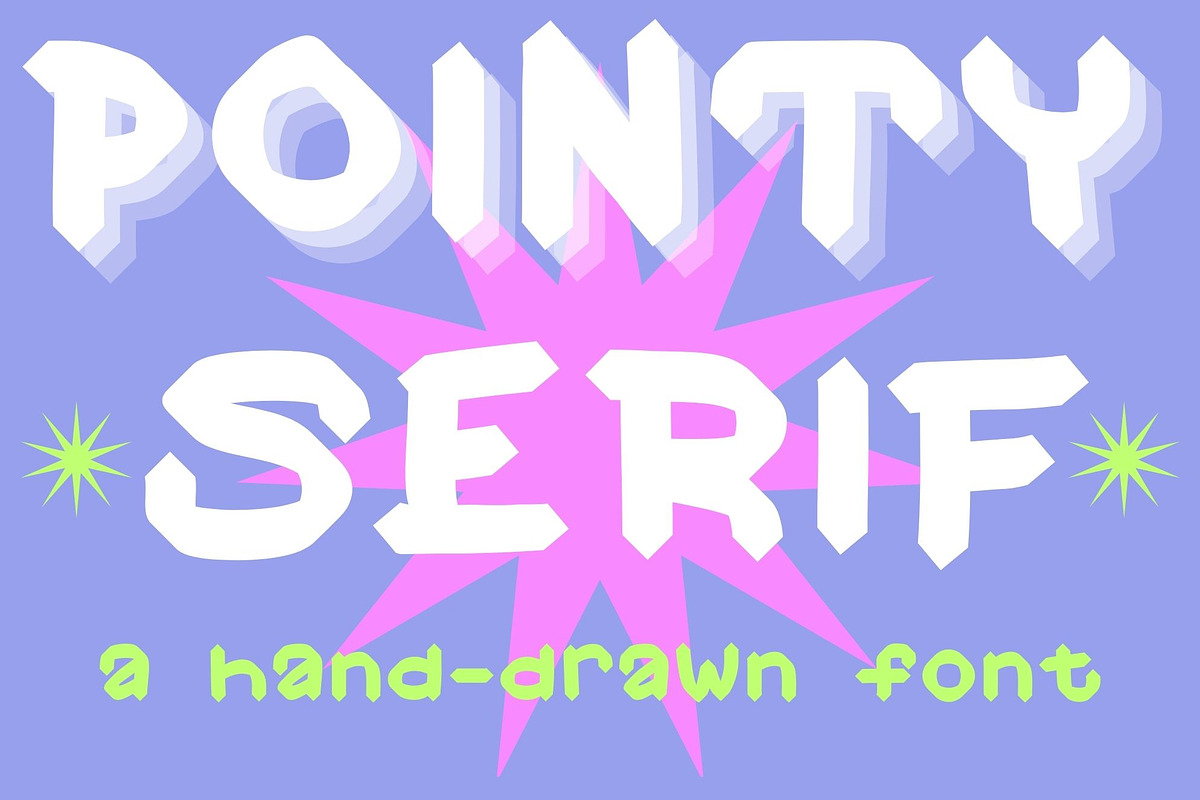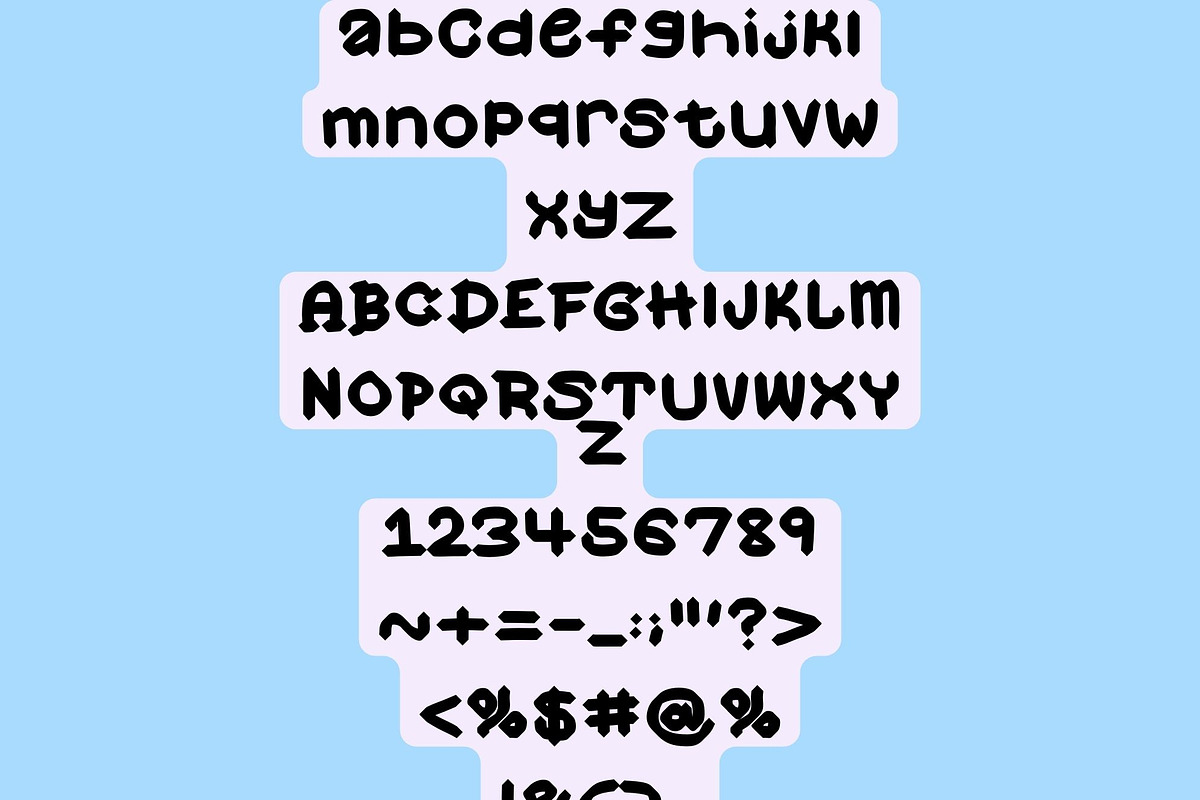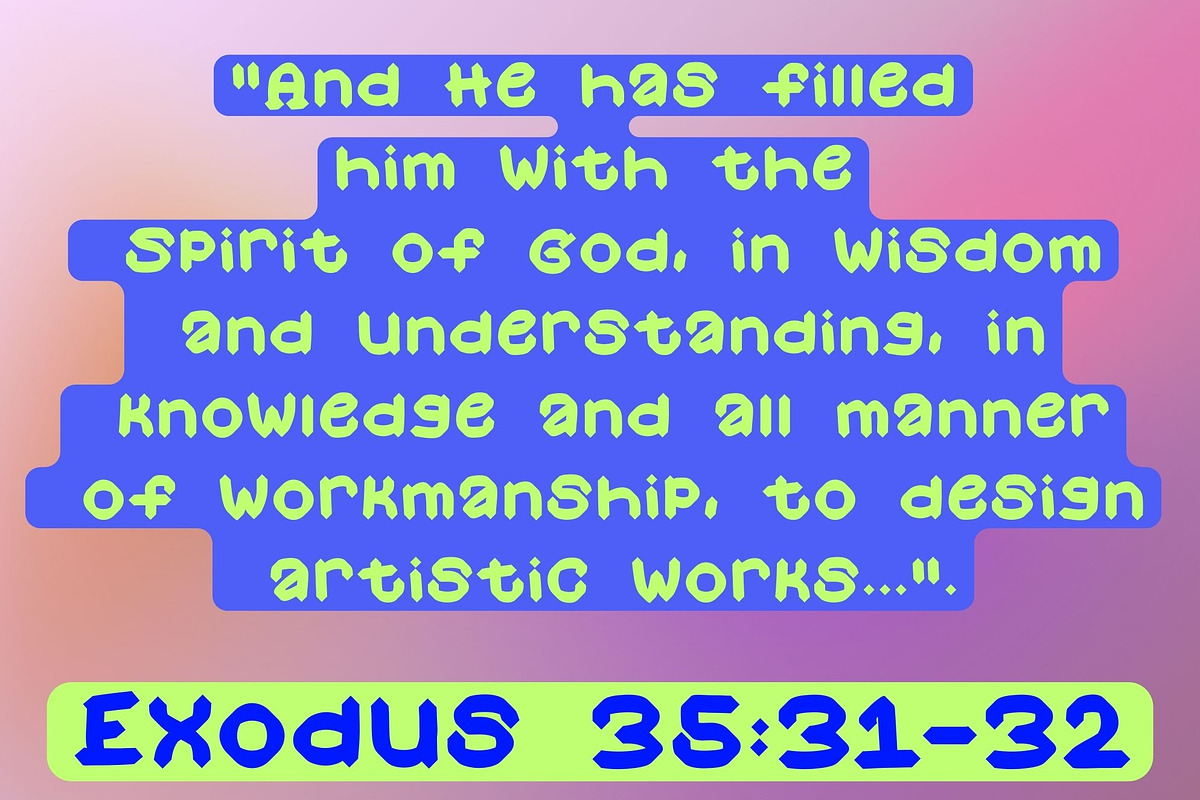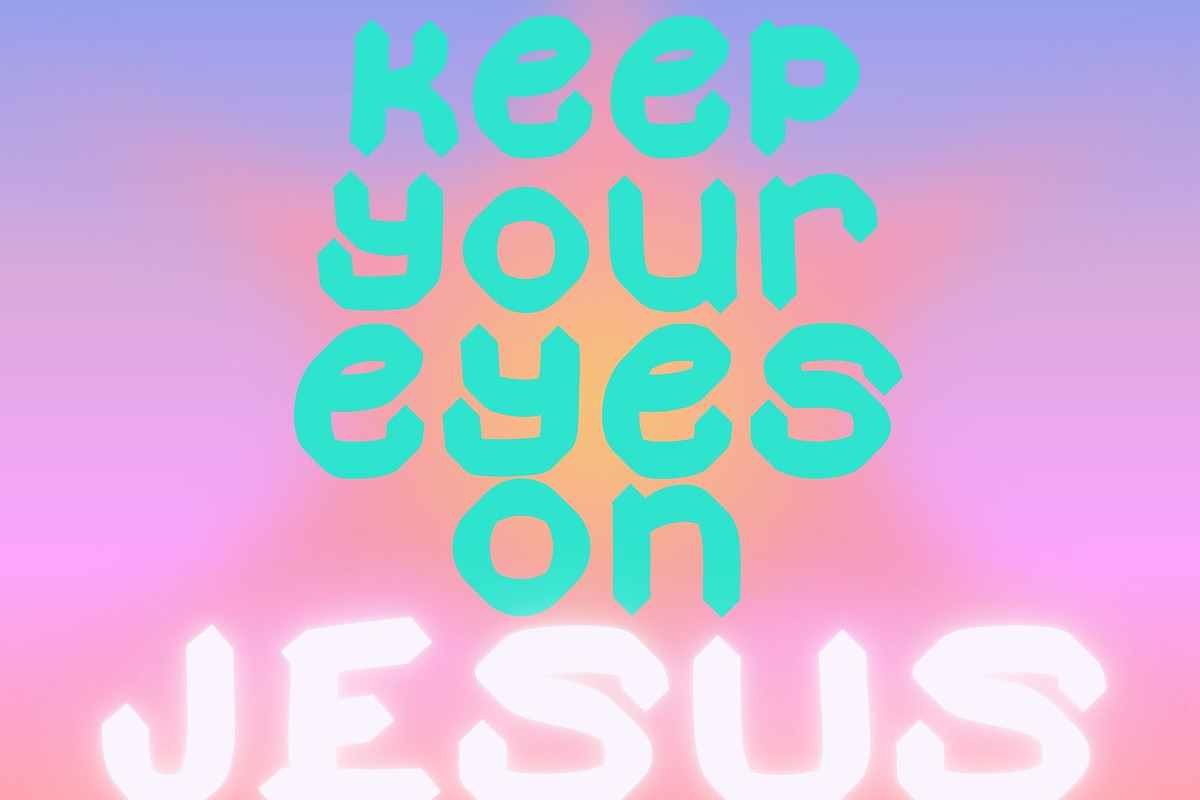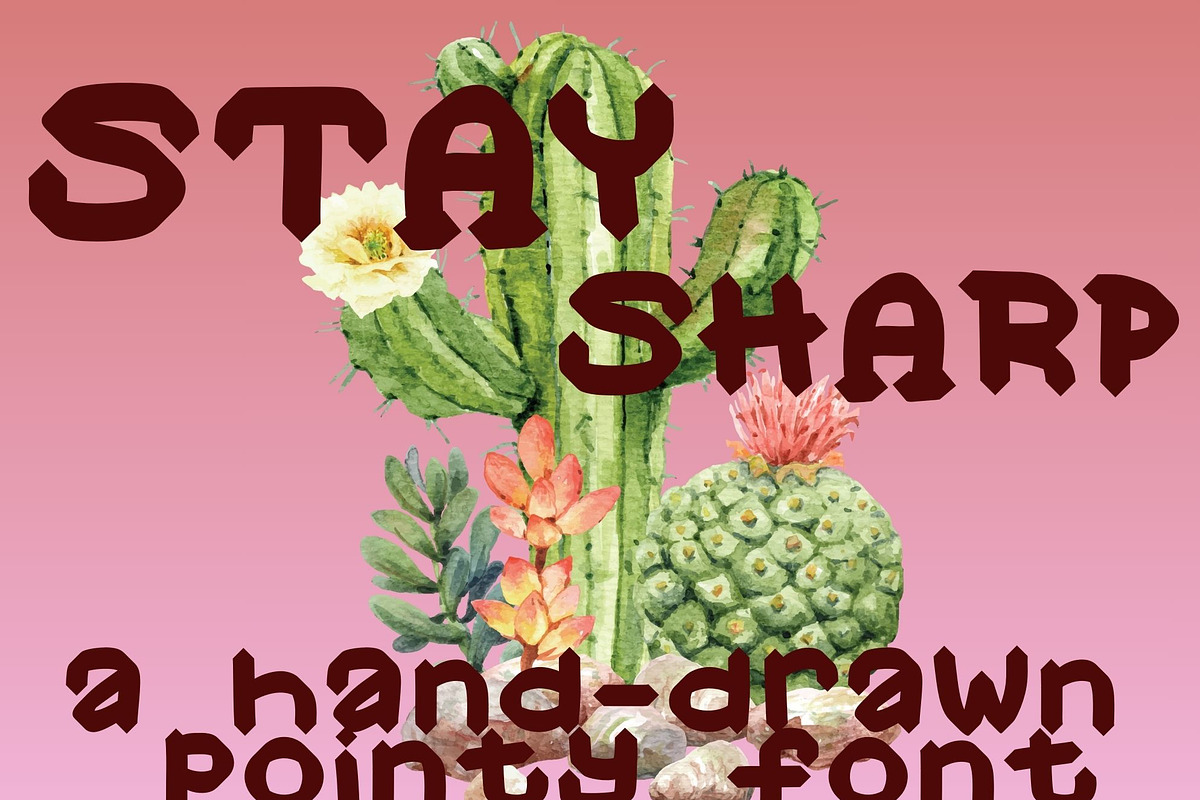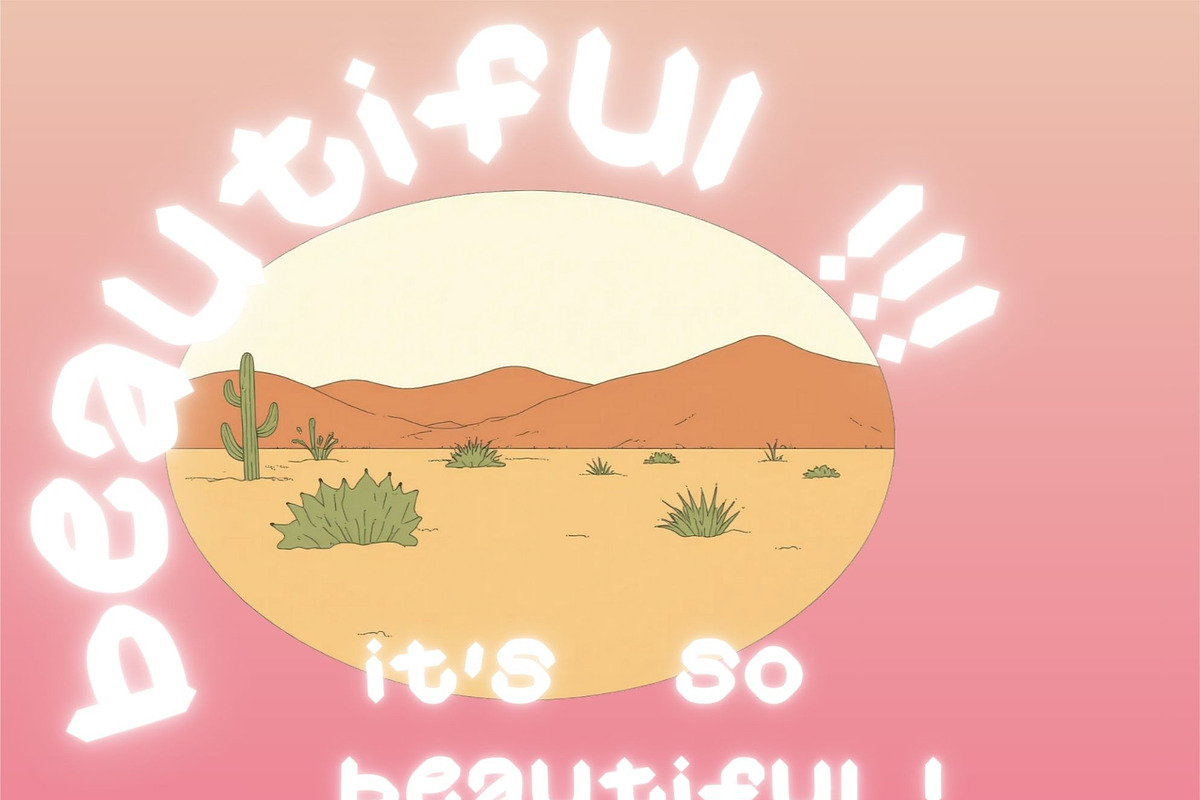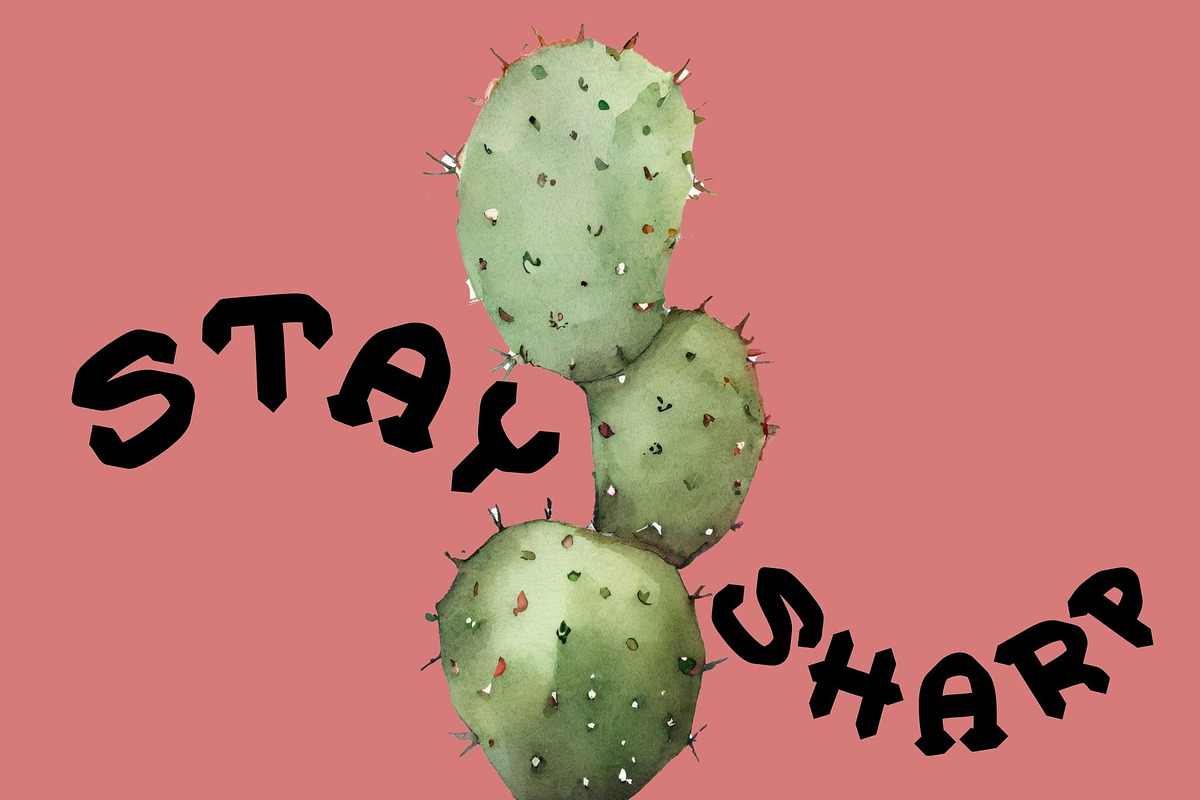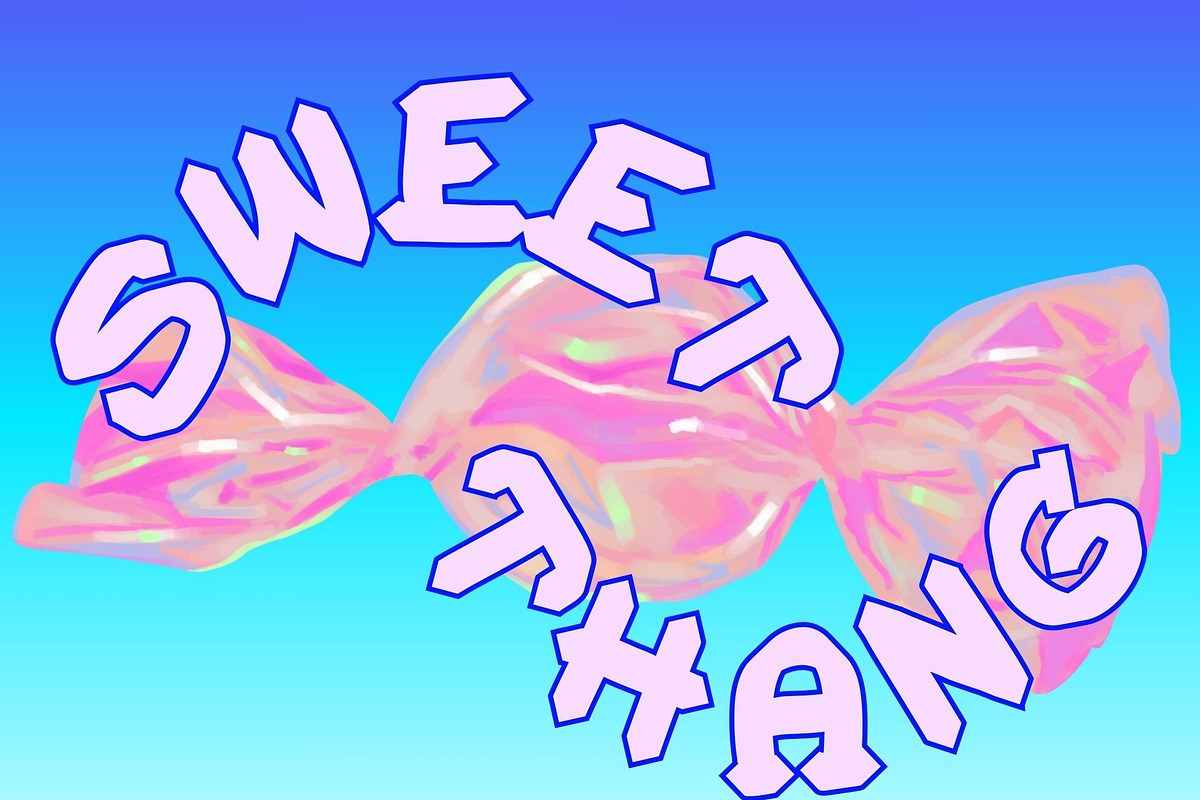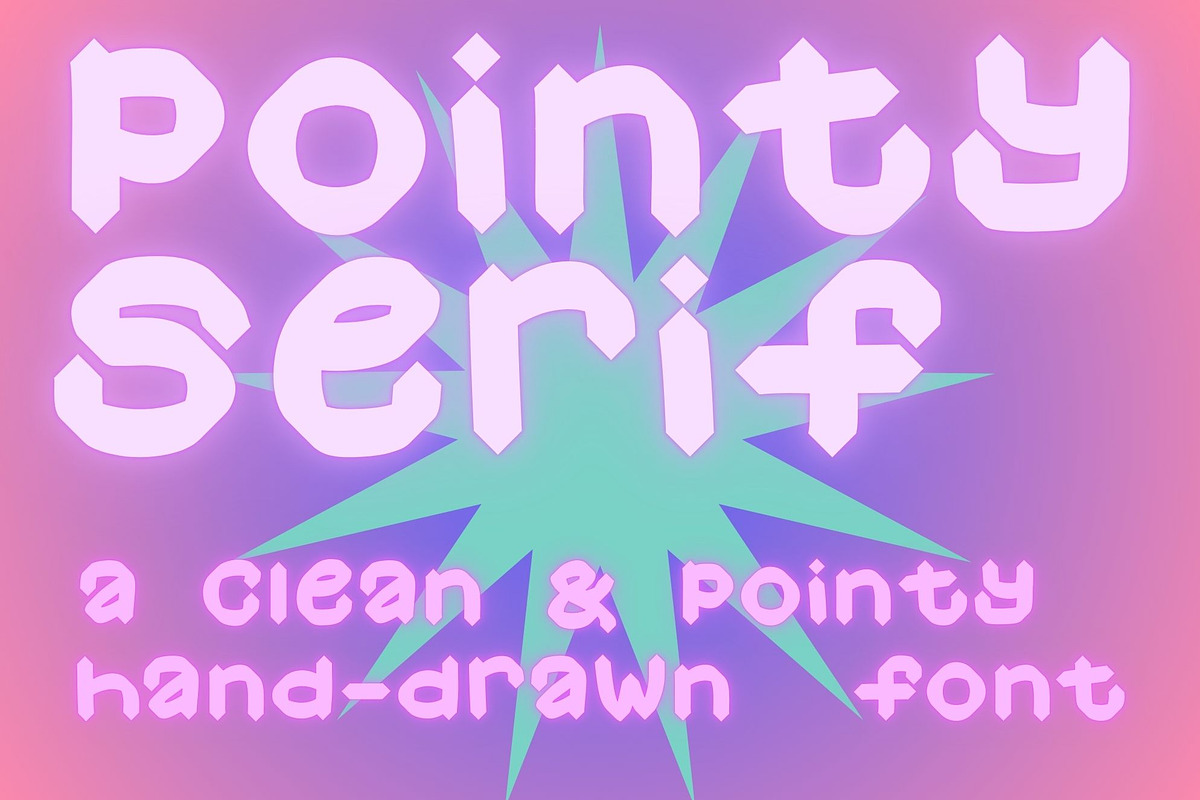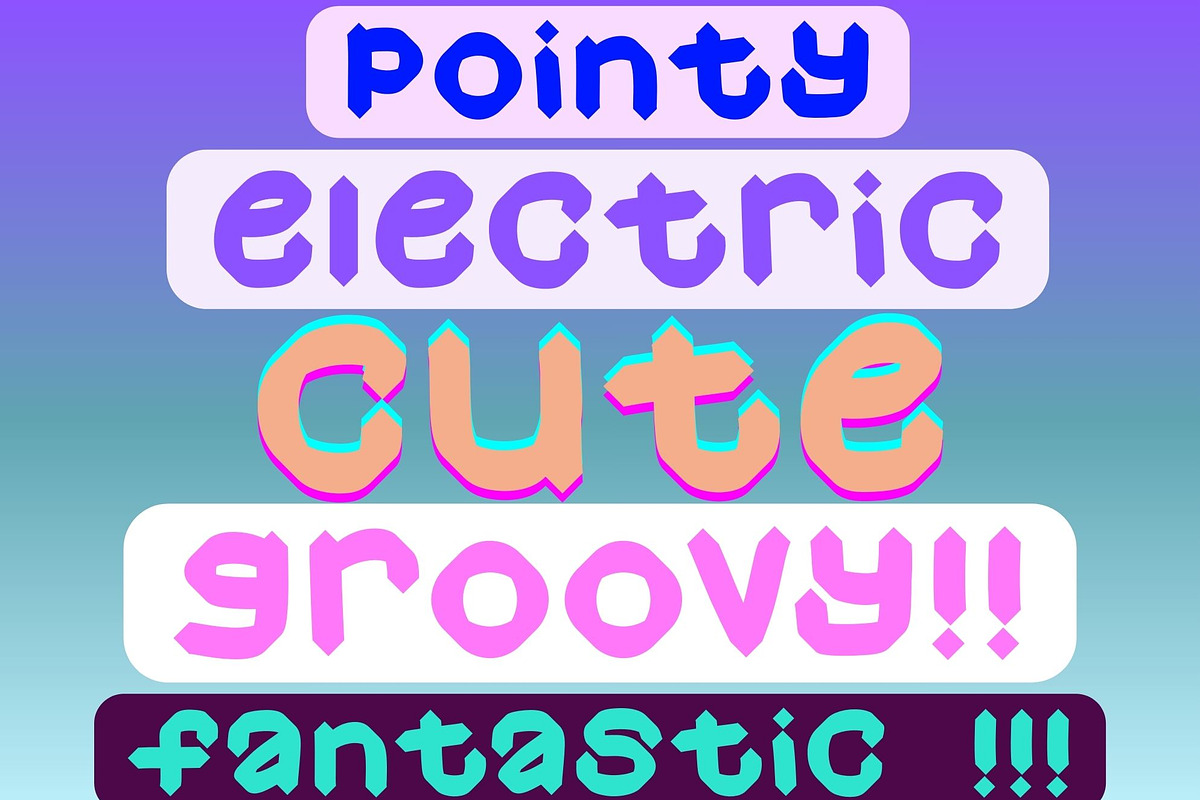
Pointy Serif
Pointy Serif , not your typical serif-y font, because well, she's pointy. If you are looking for a font that has some edge , this is it. A thickly drawn font, with pointed edges and some
- full alphabet lower case and upper case
- standard symbols and numbers